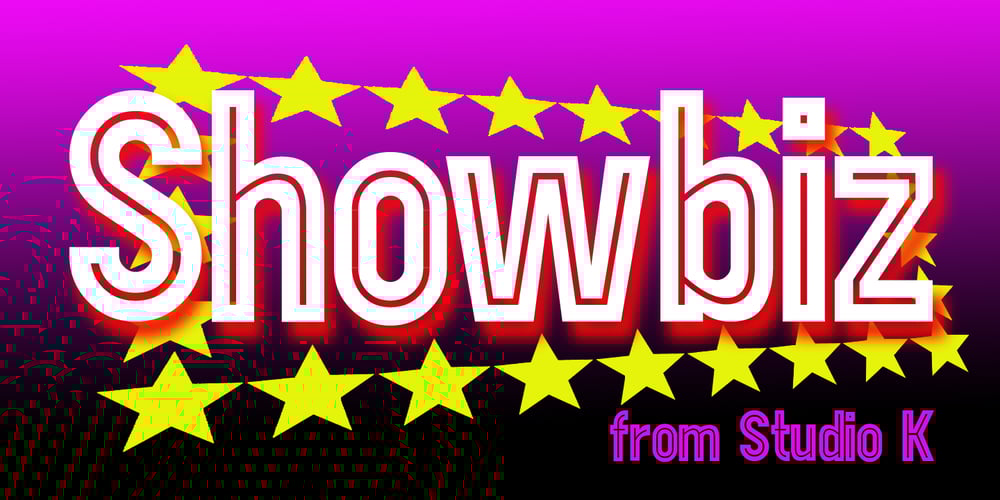
Showbiz
Showbiz font
Showbiz Font Family was designed by Keith Tricker and published by Studio K. Showbiz contains 4 styles and family package options. An all singing, all dancing performer, Showbiz is the perfect font for those who want to sprinkle a little stardust on their typography and give a sense of occasion to their special announcements. It’s an in-line version of Studio K’s Red Top, Export Drive and Soft Rock, with which it shares the same basic outline and metrics. Mix and match them to stunning effect!